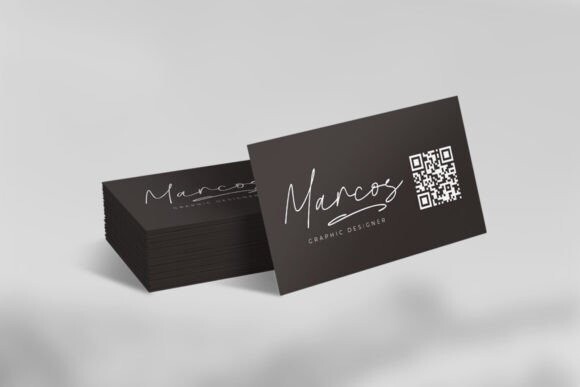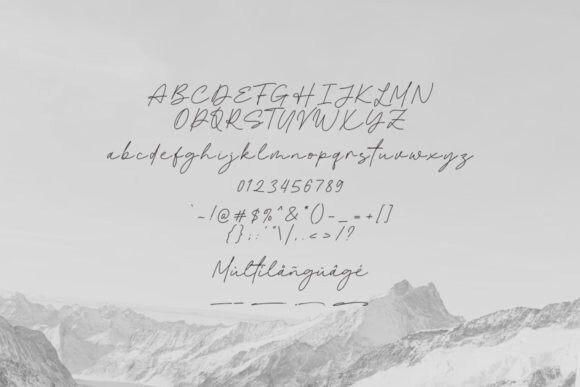
Twilight Wind Font
Twilight Wind Font is a clean, stylish, modern, and elegant script font perfect for posters, logos, magazines, book covers, banners, and many more! Get this amazing font, and use it to create lovely designs. It can easily be matched to an incredibly large set of projects, so add it to your creative ideas and notice how it makes them stand out!